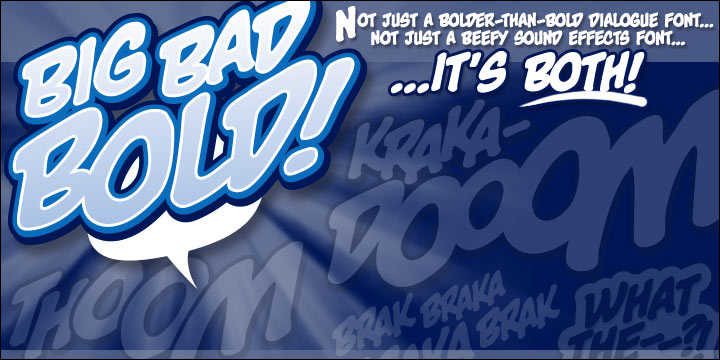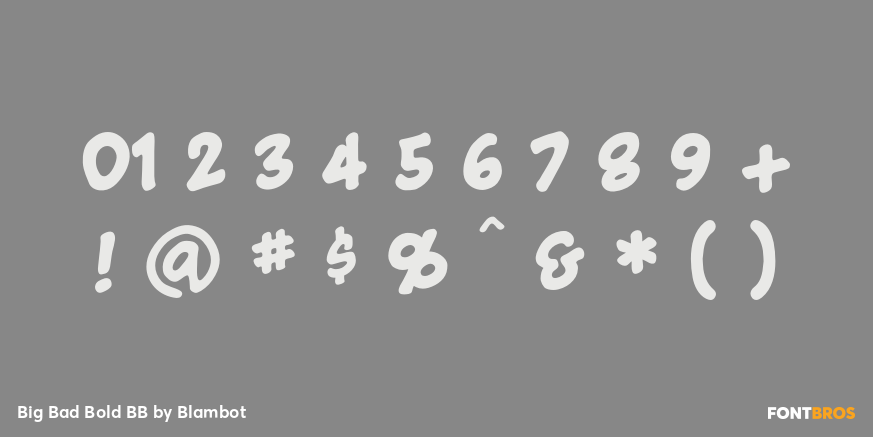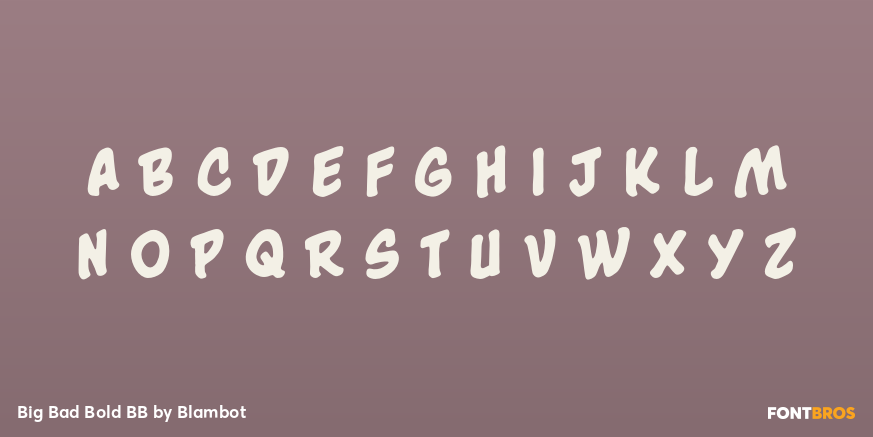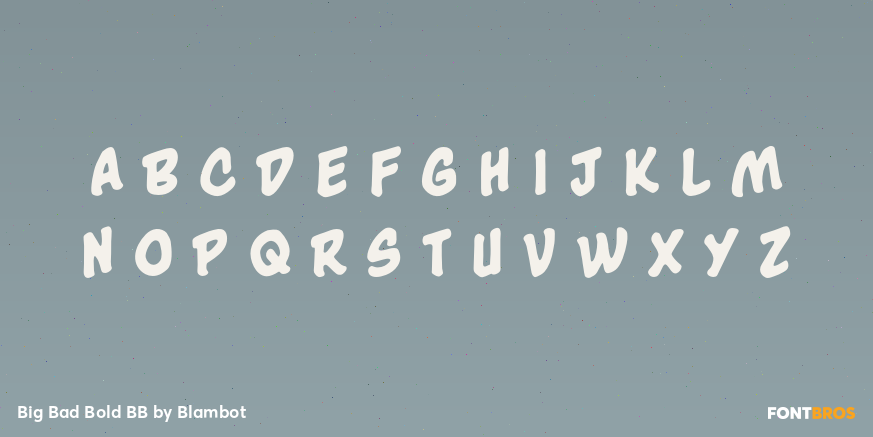
Big Bad Bold BB
Font Family by Blambot
Designed for use as both a larger-than-life comic book dialogue font and a sound effects font!
Includes regular and italic, as well as a huge set of European characters!